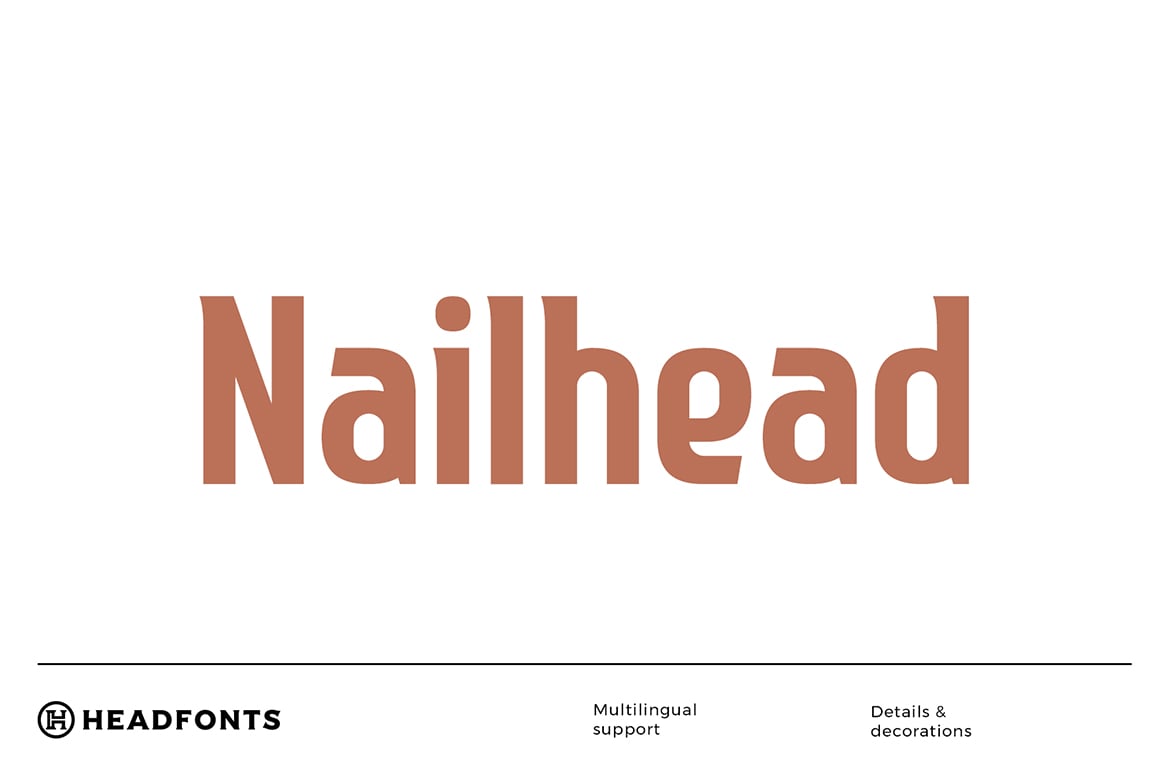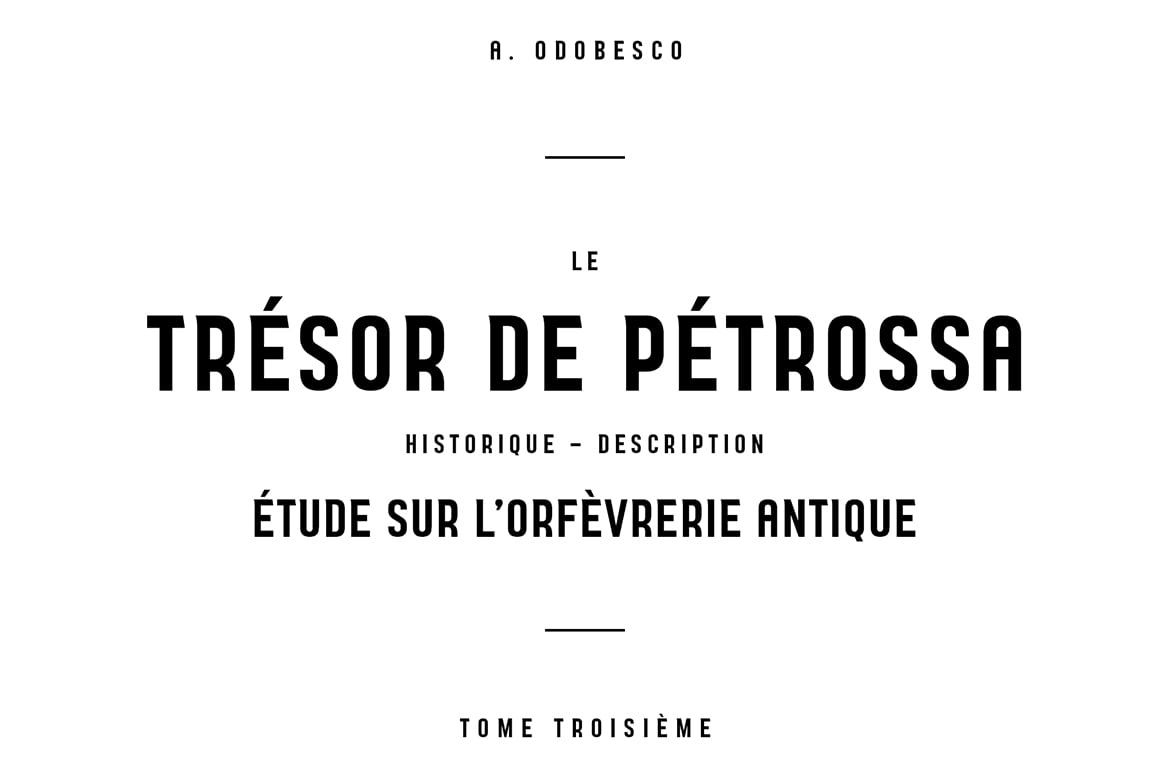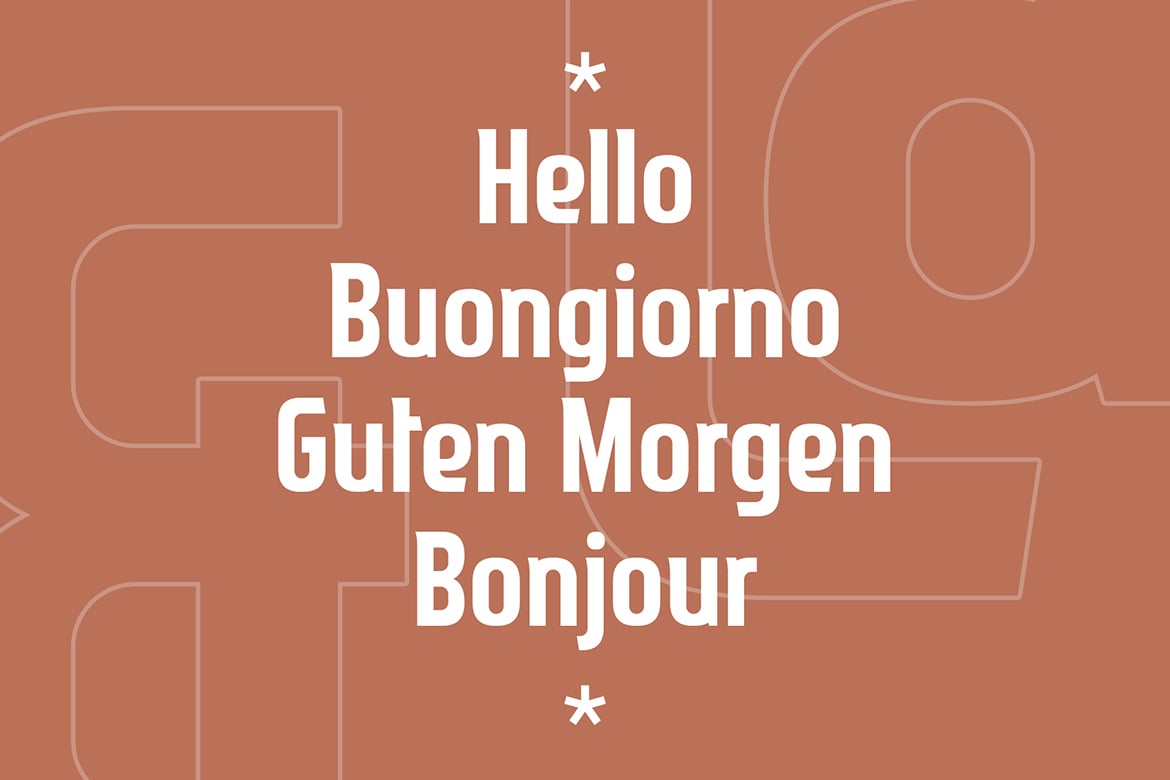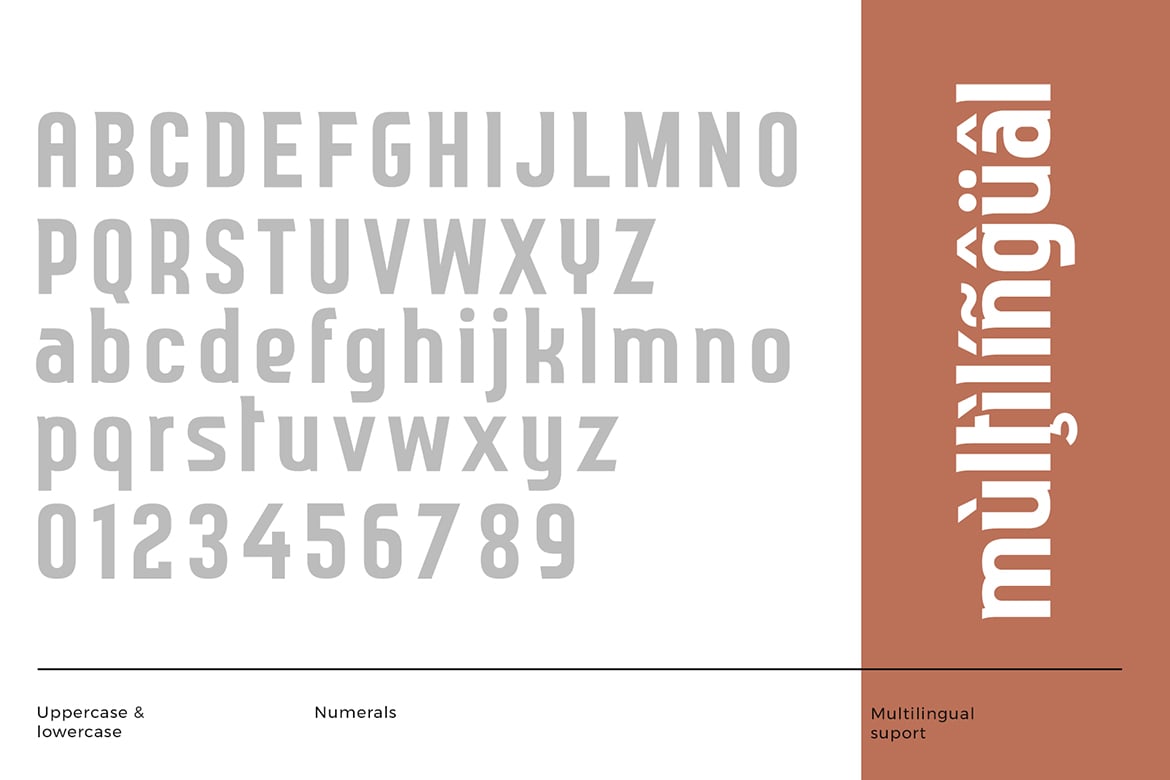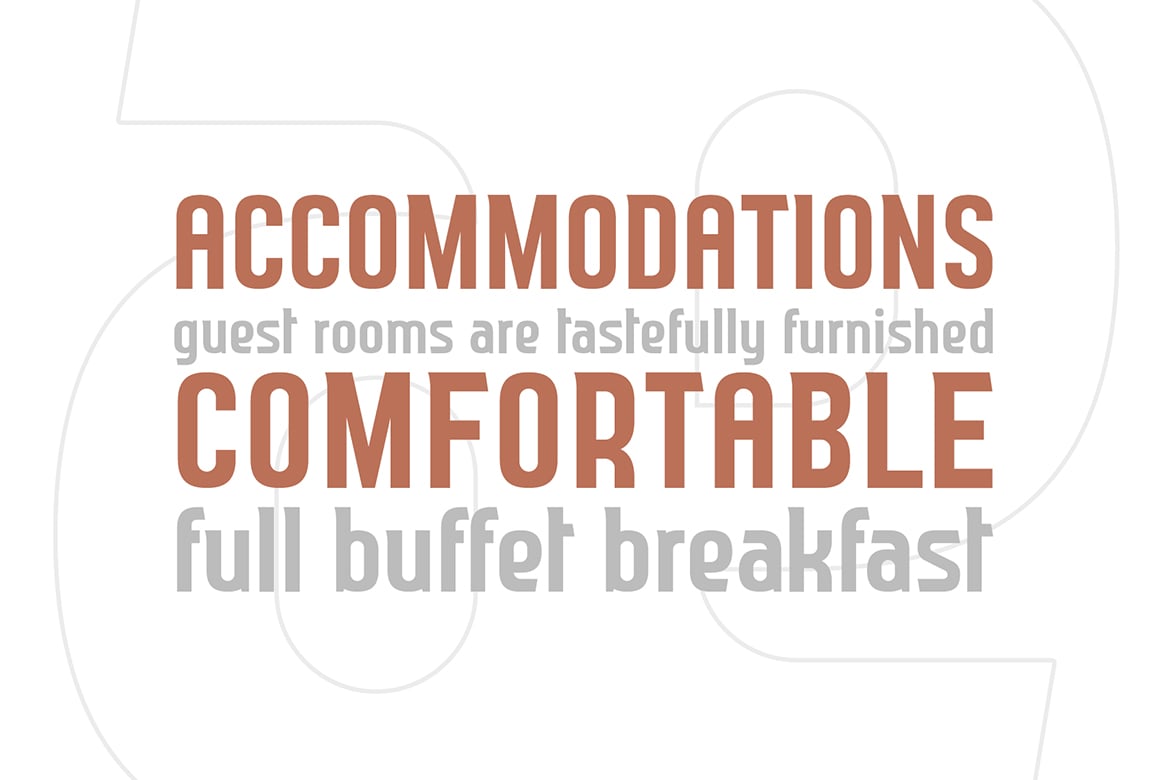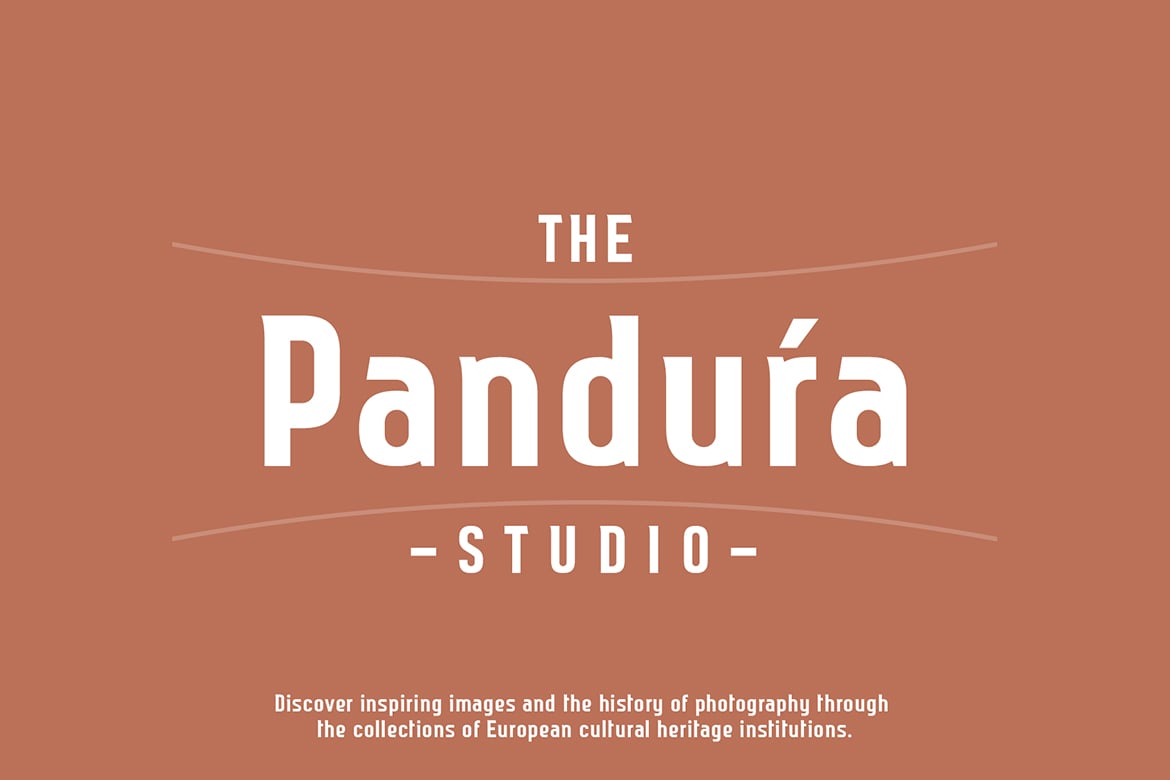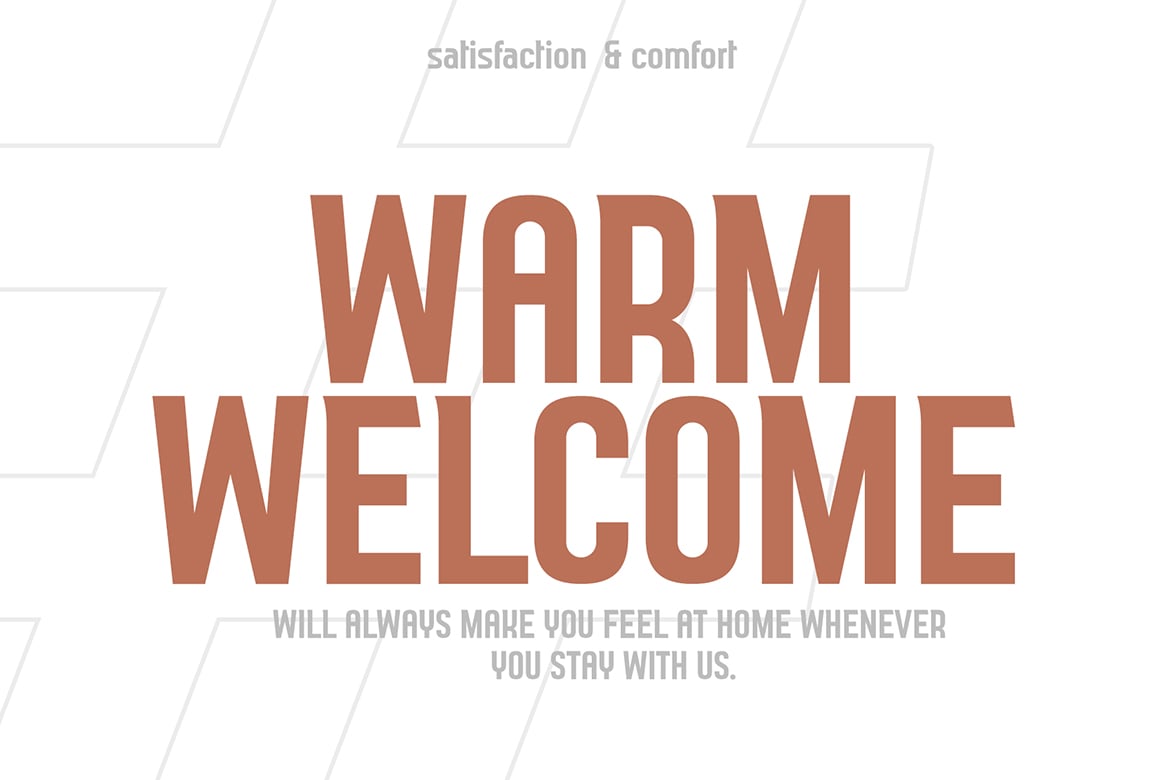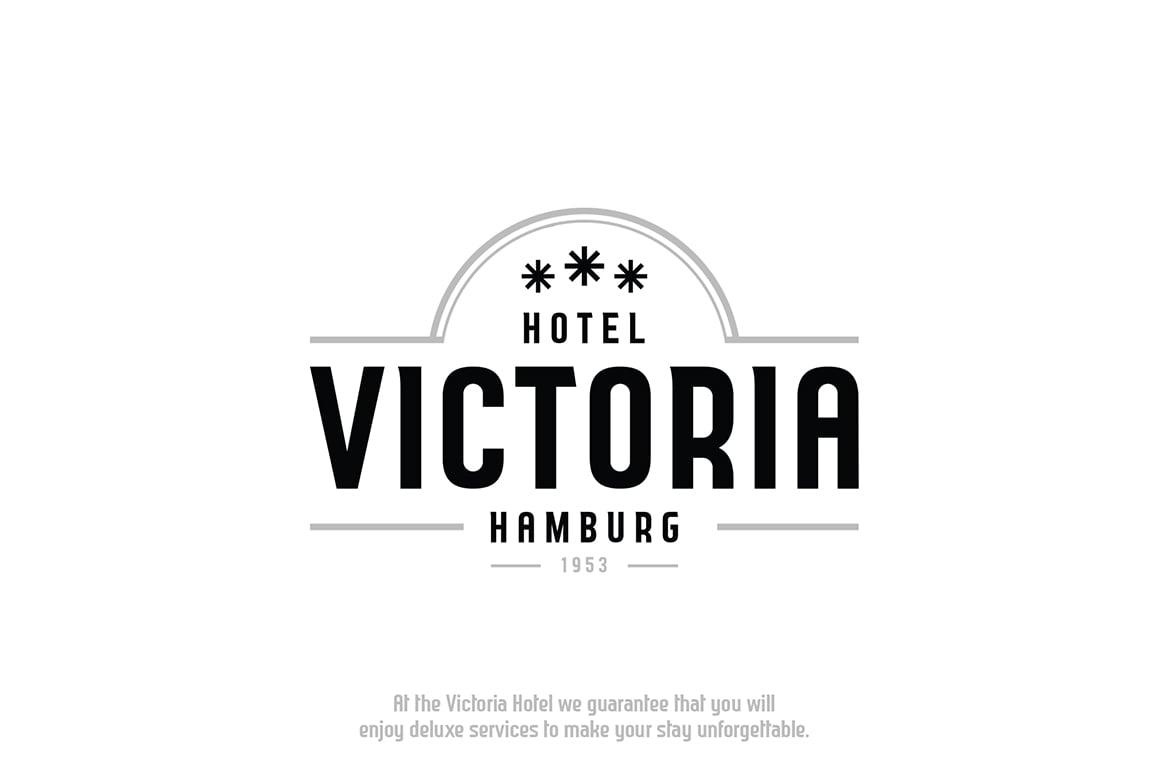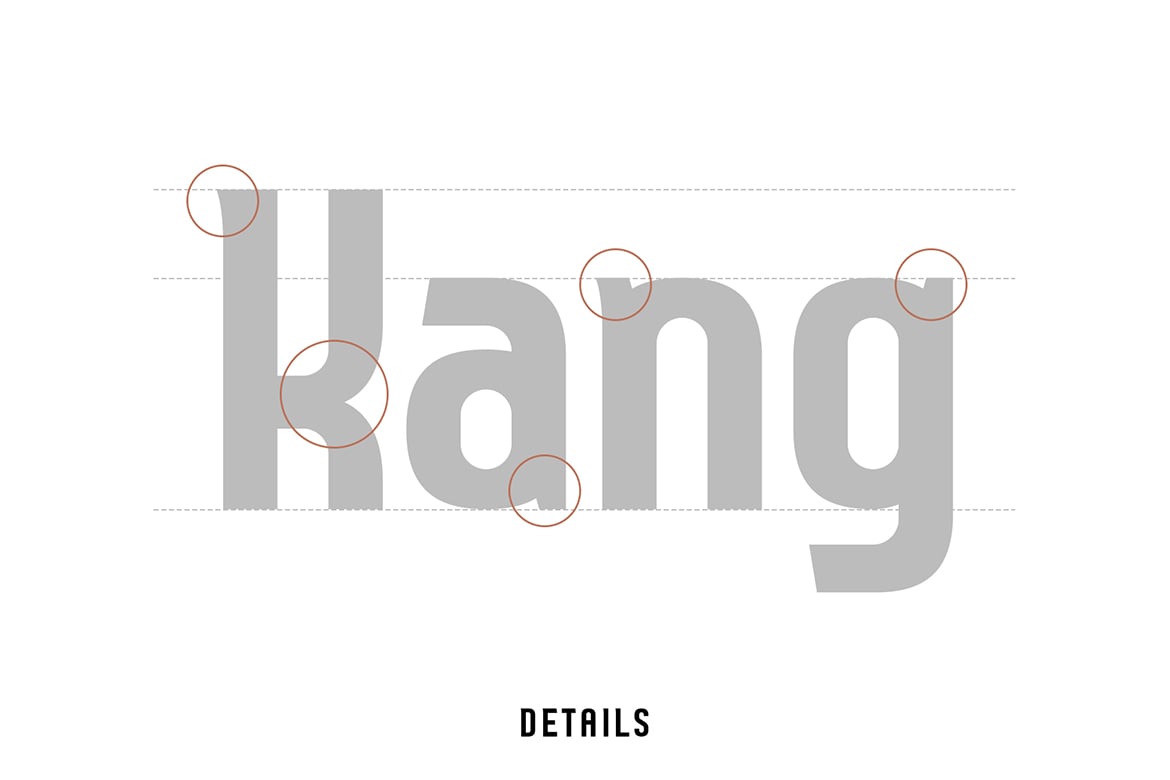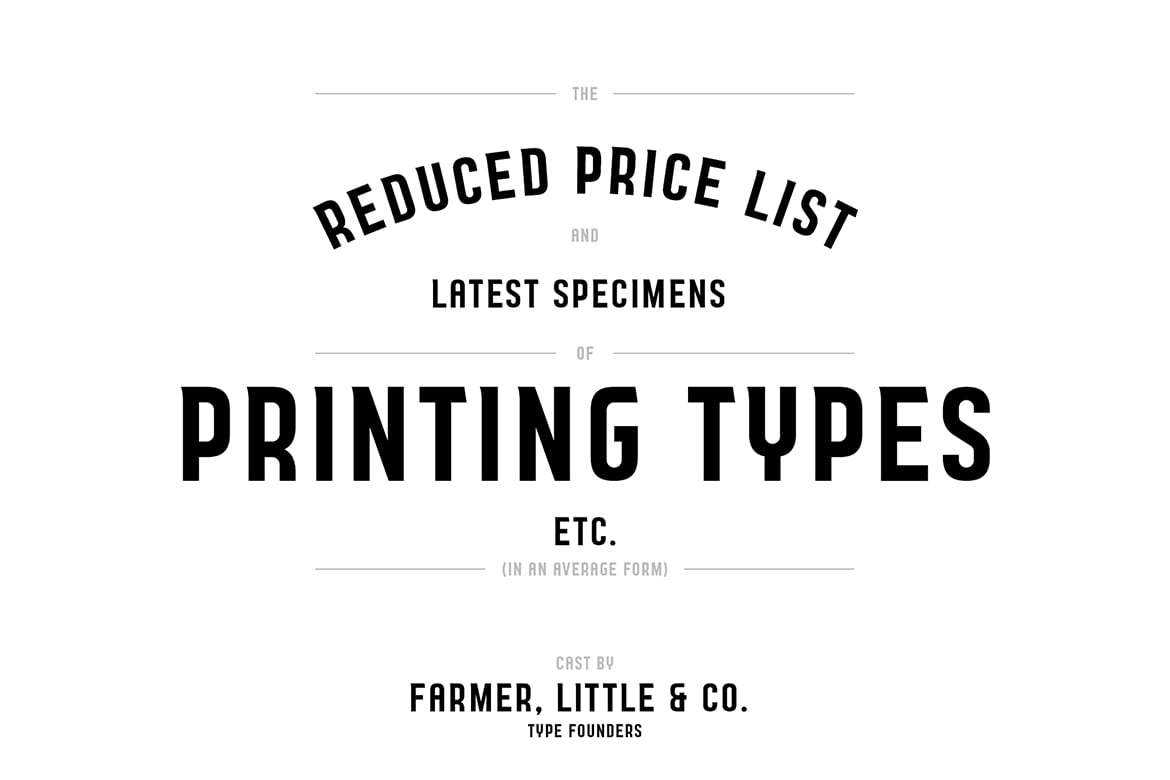
Nailhead Modern Font
Presenting NAILHEAD, a modern thick design font with a gentle, narrow serif. This font features a simple yet elegant appearance, covering a wide range of projects. From poster design, banners to wedding invitations, Nailhead
will definitely come in handy when designing high quality material for both digital and print designs.
Nailhead includes a number of 252 glyphs and extensive latin script language support.
Upper and lowercase font